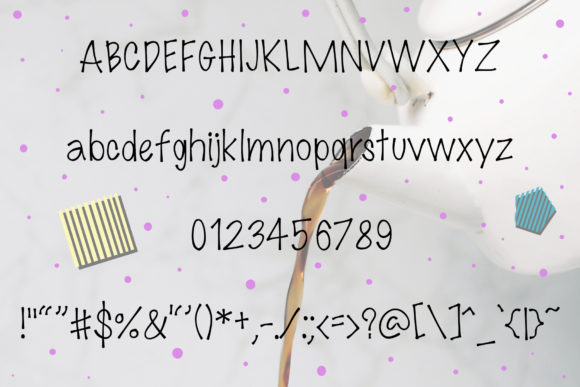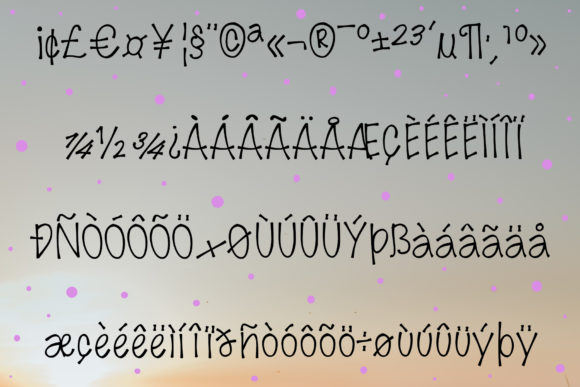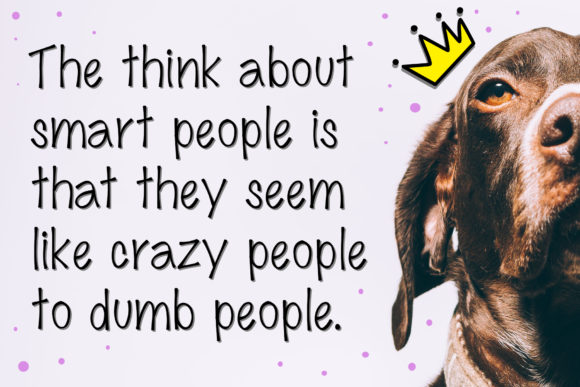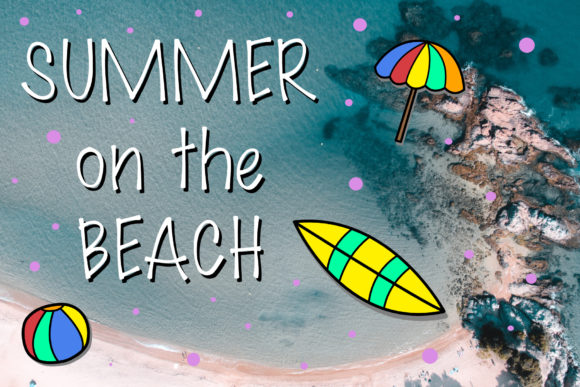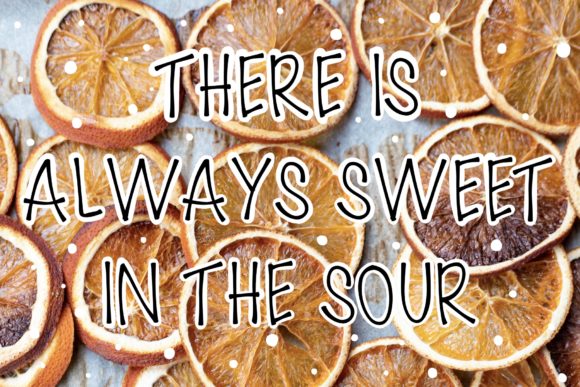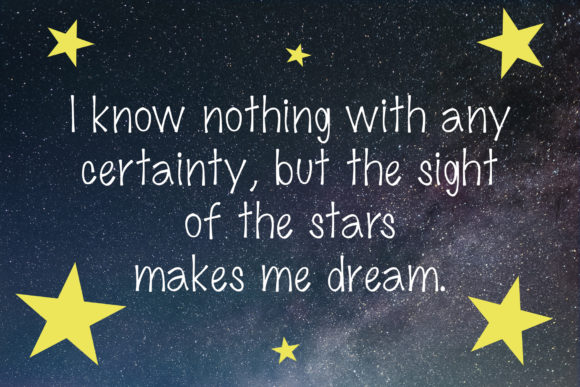
Boney Font: The Simple yet Versatile Lettered Handwritten Font
Are you a designer, crafter, or DIY enthusiast looking for a font that can elevate your creative projects? Look no further than Boney Font, a simple and neat lettered handwritten font that’s perfect for a wide range of designs. With its natural and unique style, Boney Font is incredibly versatile and can be used in various contexts, limited only by your imagination!
What is Boney Font?
Boney Font is a beautifully crafted handwritten font that’s designed to be both elegant and approachable. Its simple and neat lettering makes it easy to read and understand, while its natural and unique style adds a touch of personality to any design. Whether you’re creating a logo, a poster, a card, or a digital graphic, Boney Font is an excellent choice.
Characteristics of Boney Font
So, what makes Boney Font so special? Here are some of its key characteristics:
- Simple and neat lettering: Boney Font features clean and straightforward lettering that’s easy to read and understand.
- Natural and unique style: The font has a distinctive, handwritten feel that’s both elegant and approachable.
- Versatile: Boney Font can be used in a wide range of designs, from logos and posters to cards and digital graphics.
Use Cases for Boney Font
Boney Font is incredibly versatile, and its uses are limited only by your imagination. Here are some ideas to get you started:
- Logos and branding: Use Boney Font to create a unique and memorable logo for your business or brand.
- Posters and flyers: Add a personal touch to your posters and flyers with Boney Font’s elegant and approachable lettering.
- Cards and invitations: Create beautiful and heartfelt cards and invitations with Boney Font’s natural and unique style.
- Digital graphics: Use Boney Font to add a touch of personality to your digital graphics, such as social media graphics, blog posts, and more.
- Crafting and DIY projects: Boney Font is perfect for crafters and DIY enthusiasts who want to add a personal touch to their projects, such as handmade cards, scrapbooking, and more.
Why Choose Boney Font?
So, why should you choose Boney Font for your next design project? Here are just a few reasons:
- Unique and distinctive: Boney Font has a unique and distinctive style that will set your designs apart from the crowd.
- Versatile: Boney Font can be used in a wide range of designs, from logos and posters to cards and digital graphics.
- High-quality: Boney Font is a high-quality font that’s designed to deliver excellent results in any design.
In conclusion, Boney Font is a simple and neat lettered handwritten font that’s perfect for designers, crafters, and DIY enthusiasts. With its natural and unique style, Boney Font is incredibly versatile and can be used in a wide range of designs. Whether you’re creating a logo, a poster, a card, or a digital graphic, Boney Font is an excellent choice. So why not give it a try and see the difference it can make in your designs?